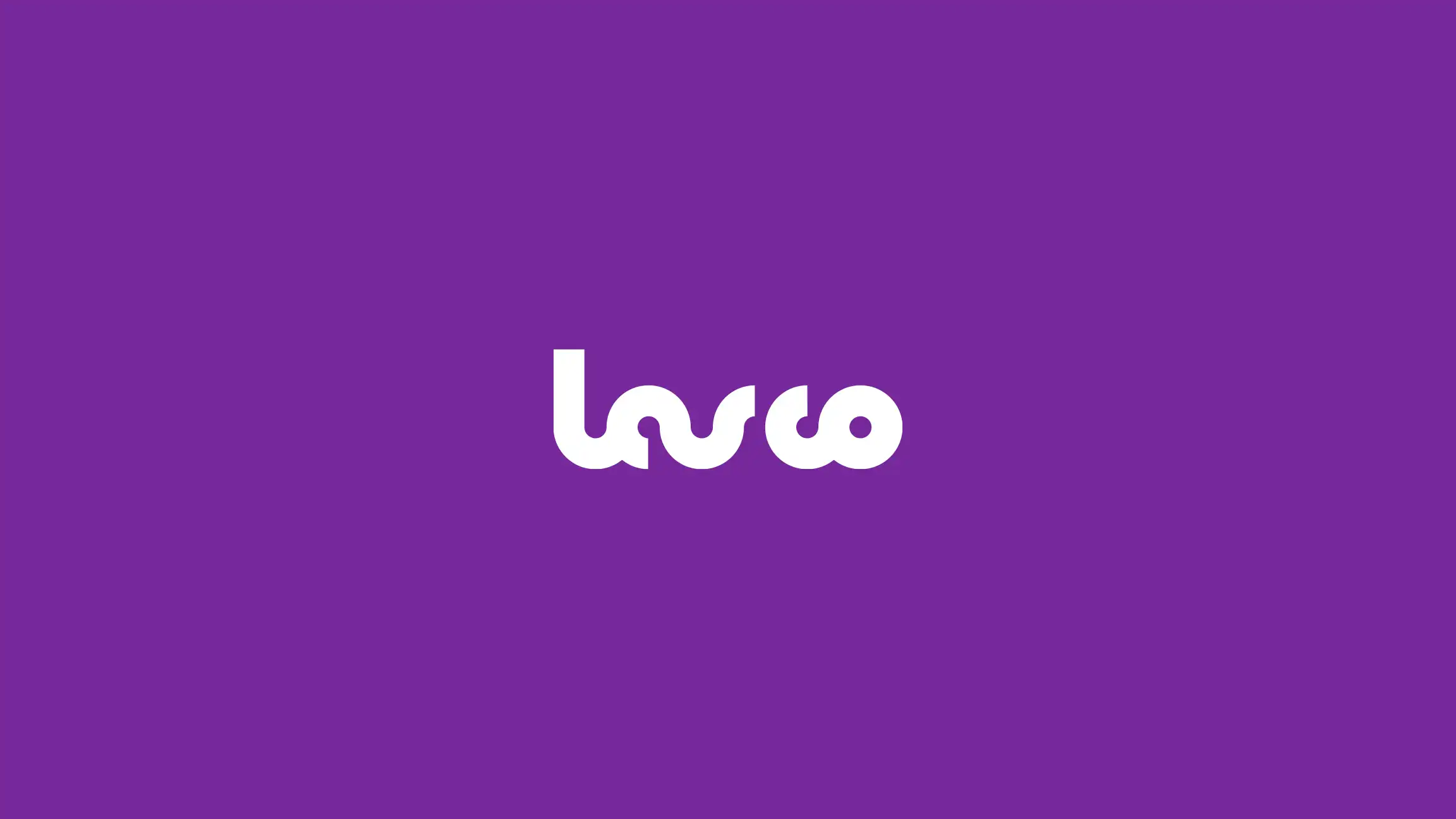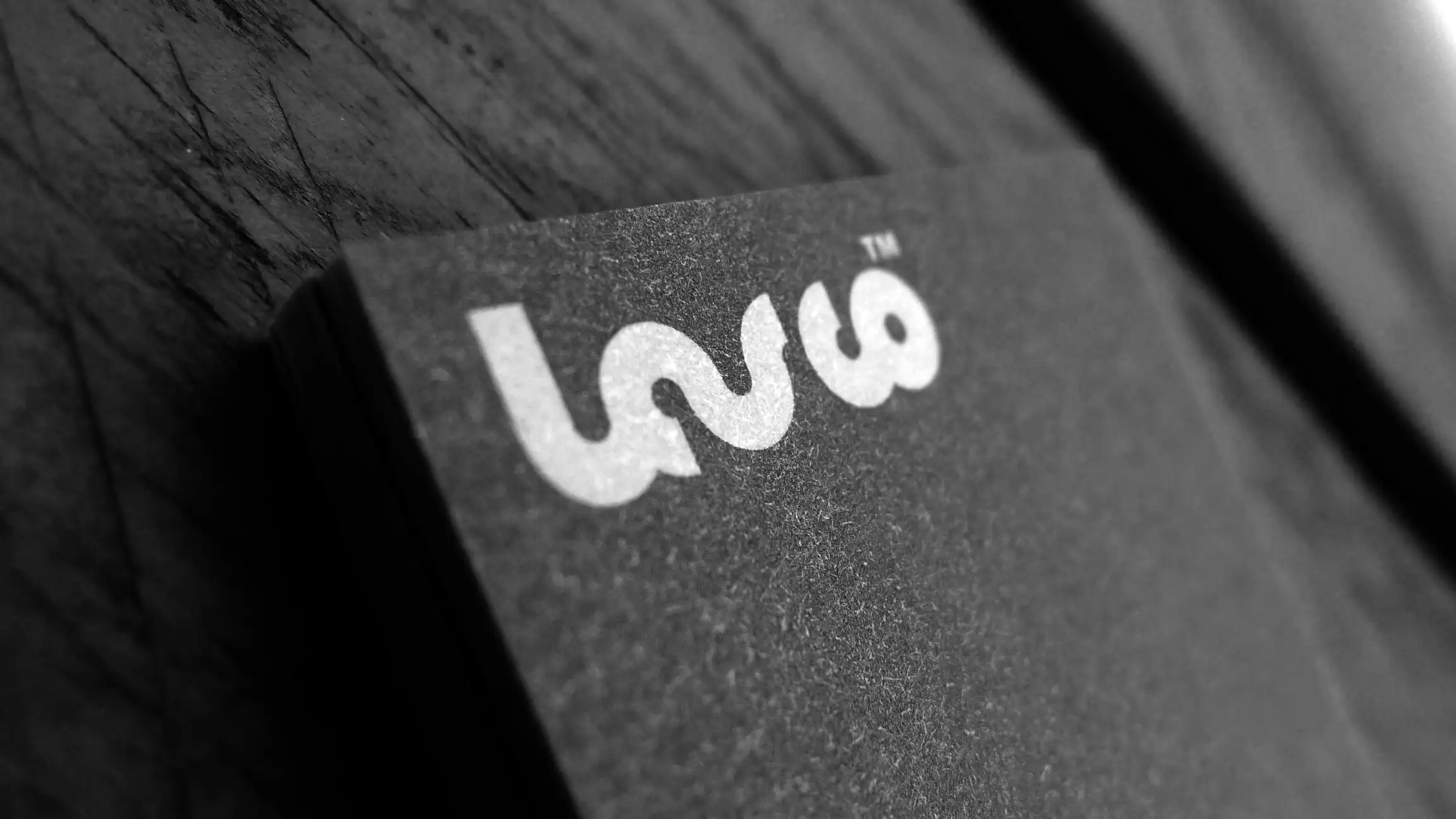
Lasco Design Group
For two years, designer Jeff Smack and I worked together at Lasco Design Group, tackling design challenges with creativity and precision. We named our business after the Lascaux cave paintings in Southwest France, symbolizing how early humans depicted their challenges on walls before a hunt. Similarly, we helped our clients prepare for their own challenges by providing the marketing tools they needed to succeed.
Logo Inspiration
The Lasco Design Logo was inspired by the toy company, Tyco Toys. Tyco Toys was an American toy manufacturer until 1997. Some of their most popular toys include the RC Turbo Hopper and related slot cars.